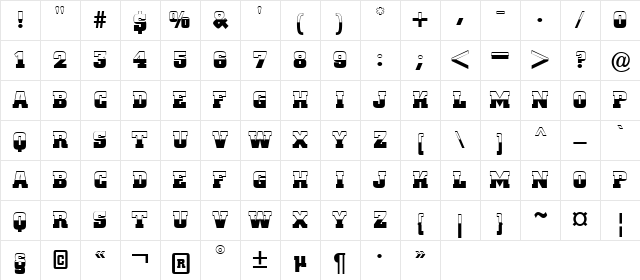
a_CityNovaTitulB&W Bold Free Font
a_CityNovaTitulB&W Bold
Design Context for a_CityNovaTitulB&W
a_CityNovaTitulB&W is a composed and adaptable typeface that performs quietly and consistently across a wide range of design contexts. Its bold stroke weight gives it real presence on the page.